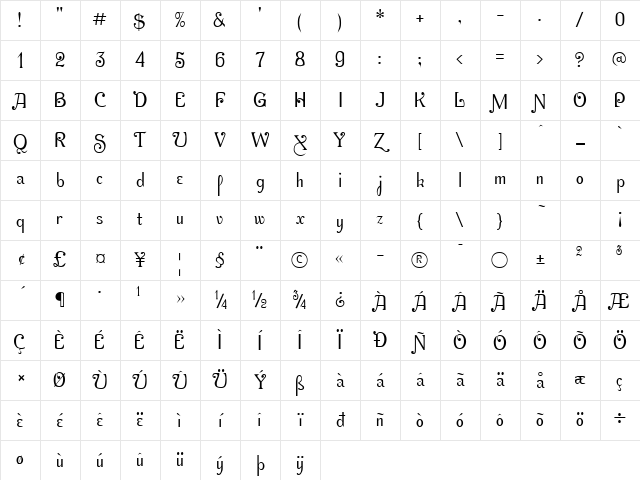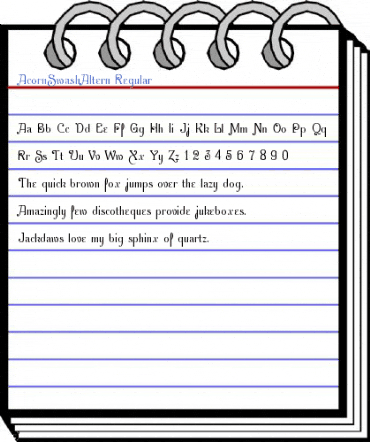
AcornSwashAltern Regular Free Font
AcornSwashAltern Regular
Design Context for AcornSwashAltern
AcornSwashAltern flows with the natural rhythm of handwritten lettering, making it ideal for designs that call for warmth and personal expression.
Font Pairing: Combine AcornSwashAltern with a simple geometric sans for maximum contrast - the tension between flowing curves and clean structure is a classic typographic pairing.
Pro Tip: Use AcornSwashAltern for short runs of text - names, titles, or taglines. Extended body copy in script faces tires the eye quickly.